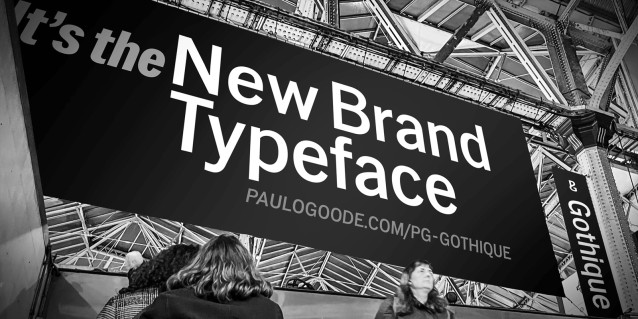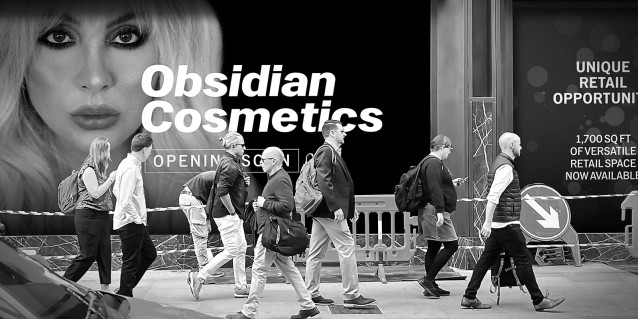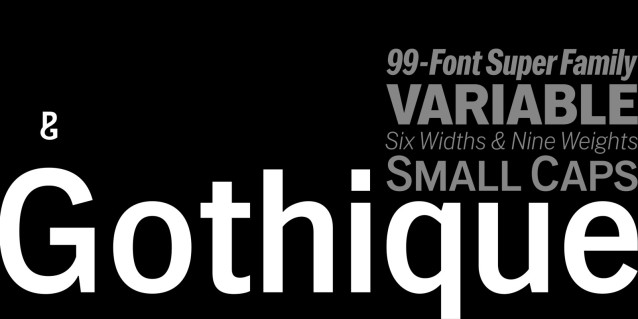
Gothique Font
Gothique Font is my addition to a long line of traditional gothic typefaces. As you can probably tell, PG Gothique is inspired by classics such as Trade Gothic, News Gothic, Franklin Gothic, Alternate Gothic, and Gothic Gothic. Well, maybe not the last one…
But Paulo, we have all those already, why would we want to add PG Gothique to our collection? This typeface has many subtle design nuances that differentiates itself from its historical influences. Also, this is possibly the most comprehensive Latin gothic font family released to date. It has 99 fonts that cover pretty much every style you could ever need, and if you do require more, this family is available as a single variable font that covers all the weights and widths in between.
PG Gothique is designed to handle a multitude of applications, from branding projects, to titles, body text, user interfaces, and film poster credits. This type family has a style that will suit the purpose.
There are 99 fonts in this family, ranging from Thin to Ultra weights across six widths in both roman and italic*. Activate Stylistic Set 1 and you will get the alternate slab serif-style capital “I” that offers improved legibility when placed adjacent to a lowercase “l”. PG Gothique has an extensive character set that covers every Latin European language.